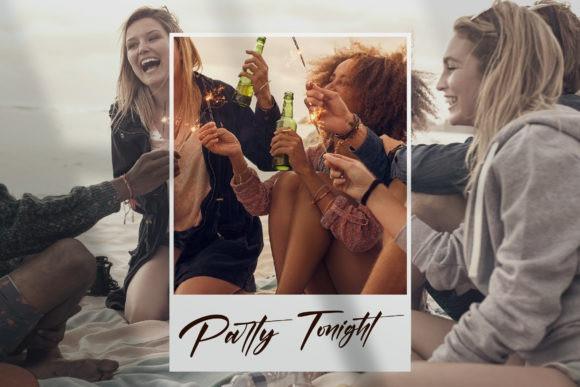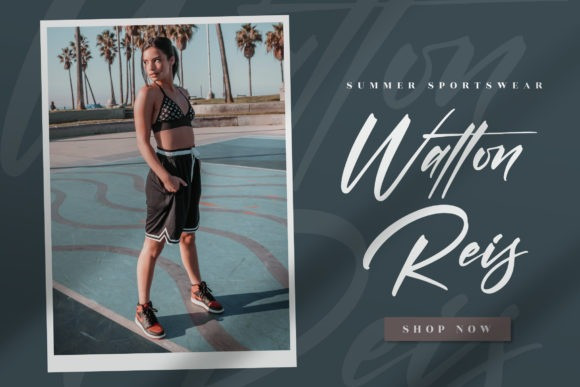
Stellanova Script
Stellanova Script Font
Stellanova Typeface is a handmade script typeface. Stellanova is suitable for wedding invitation, any greeting cards, retro / vintage design style, or any design that needs natural and personal touch. Mix and match the alternate characters to add an attractive message to your design.
Ian Mikraz